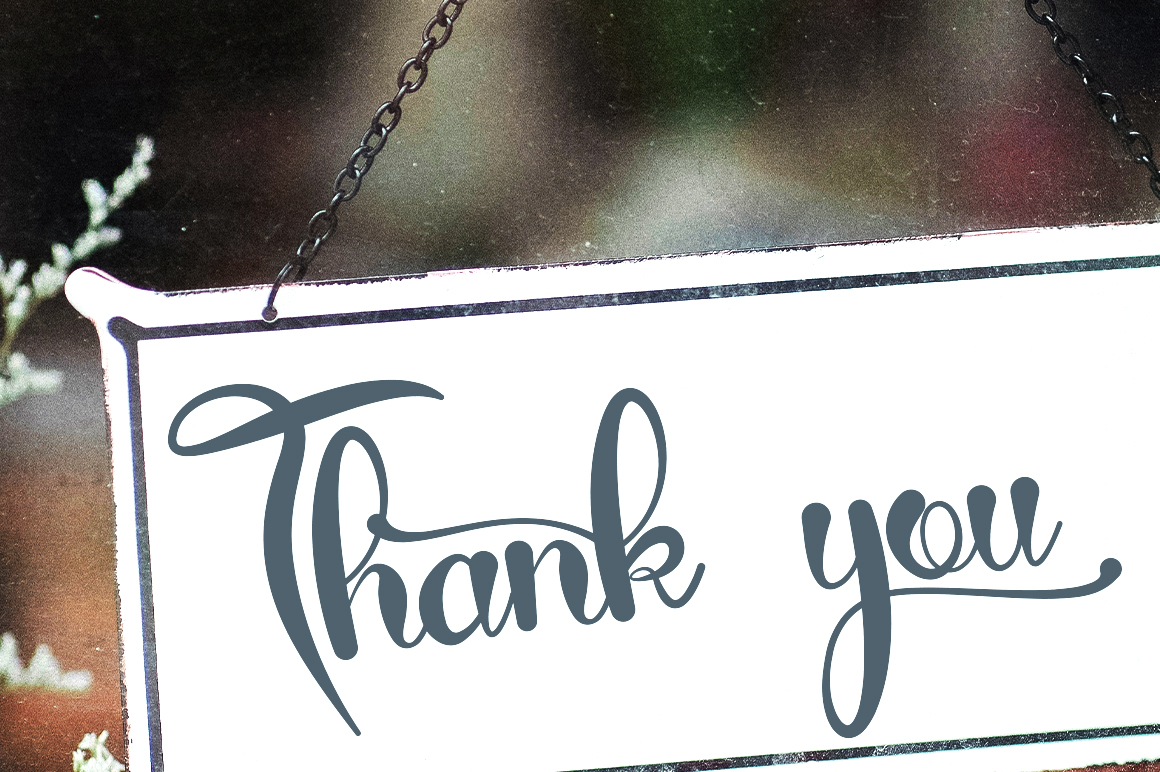
Sacha Script Font
This is an interesting handwritten font perfect for any design you wish to create. Add it to your creative projects, and it will make your work sparkle with elegance and delight. This font is PUA encoded, which means you can access all of the glyphs and swashes with ease!